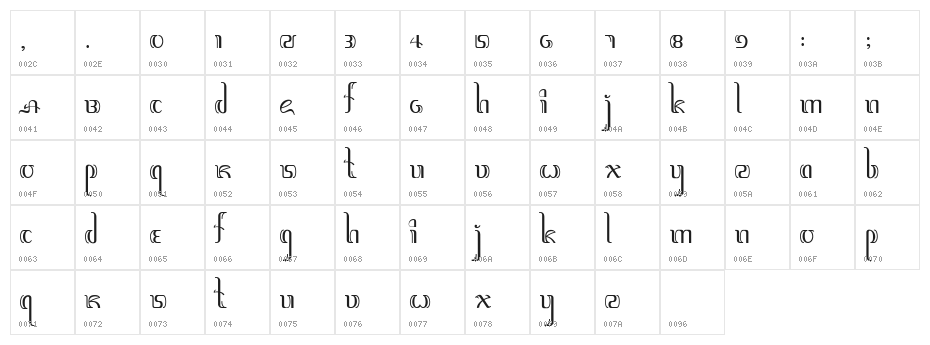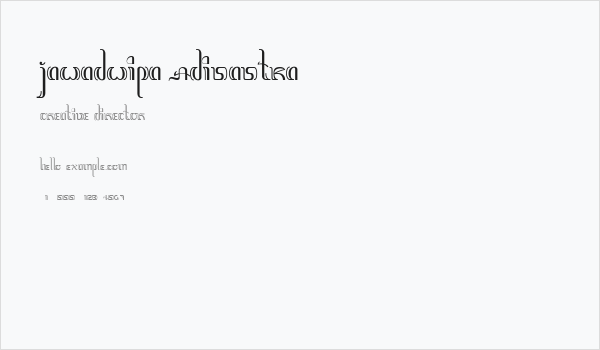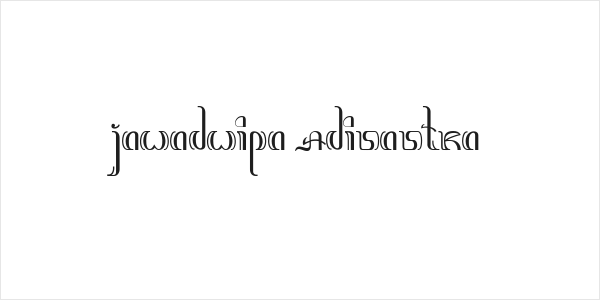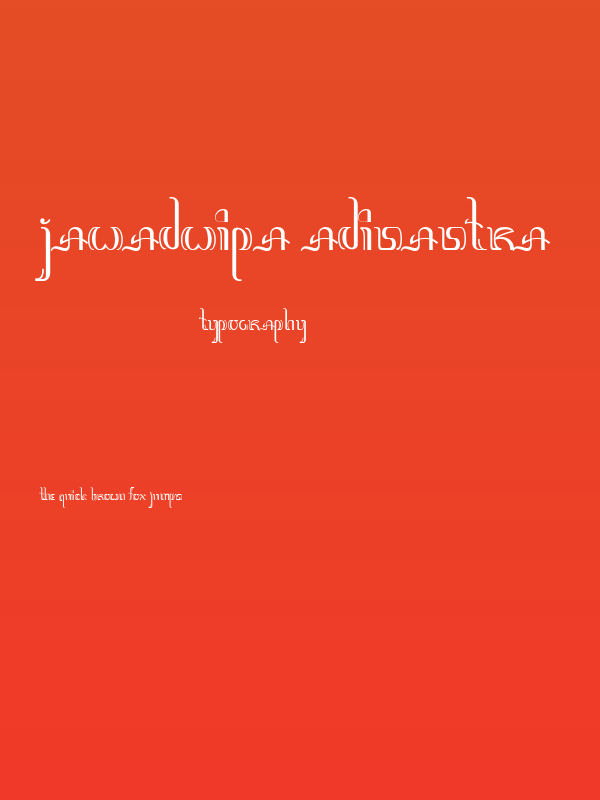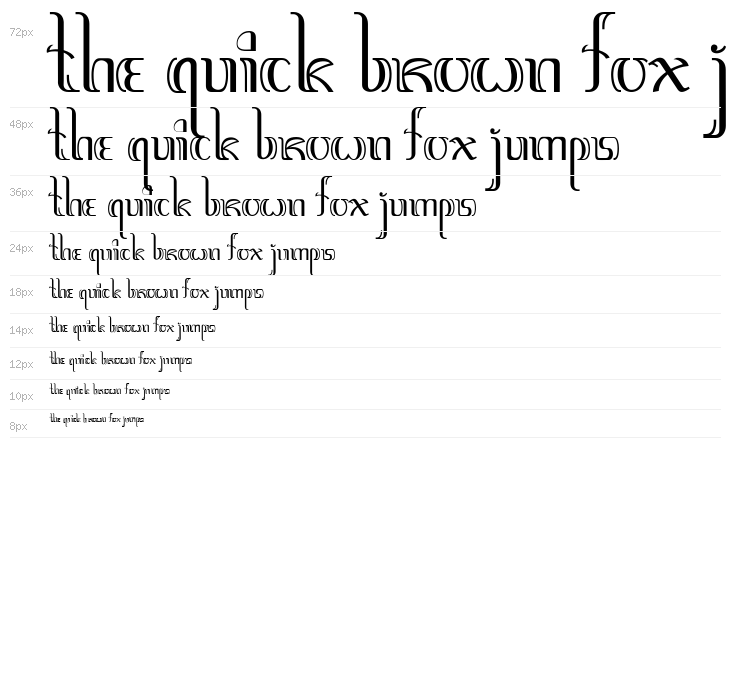
Jawadwipa Adisastra Font
Jawadwipa Adisastra Description
This font features a unique and artistic design with an elegant, flowing style that combines elements of both modern and traditional typography. The characters are intricately crafted with a high level of detail, showcasing a blend of curves and sharp edges that create a visually striking appearance. The uppercase and lowercase letters maintain a consistent style, with elongated ascenders and descenders that add to the font's decorative nature. The numerals and special characters are designed to complement the overall aesthetic, ensuring a cohesive look across all text elements. This font is ideal for projects that require a touch of sophistication and creativity.